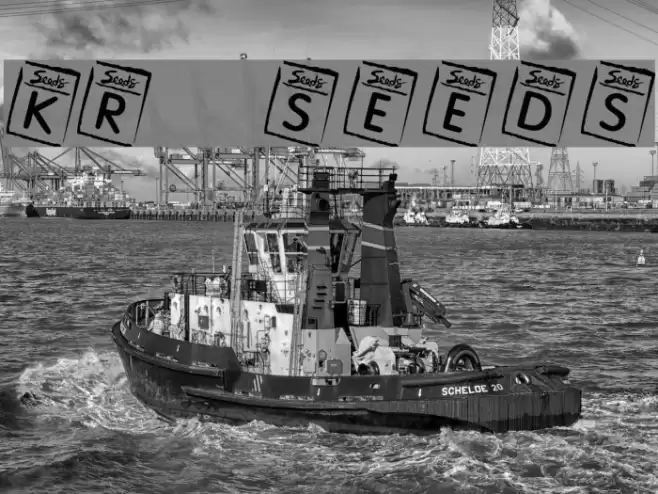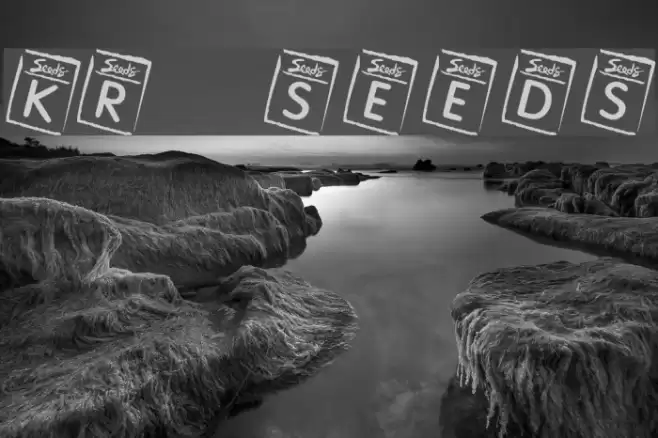
KR Seeds Font
KR Seeds Description
This font features a playful and unique design where each character is encapsulated within a stylized seed packet, adding a whimsical and decorative touch. The letters are bold and clear, making them easily readable despite the decorative elements. The overall style is reminiscent of vintage seed packaging, which gives it a nostalgic and charming appeal. The font is suitable for creative projects that require a touch of fun and personality, such as gardening-themed designs, children's books, or playful branding. Its distinct style makes it stand out, ensuring that any text using this font will capture attention.
A playful, decorative font with characters inside stylized seed packets from Uncategorized fonts.
- Proposed Projects: Ideal for gardening-themed designs, children's books, playful branding, and creative projects.